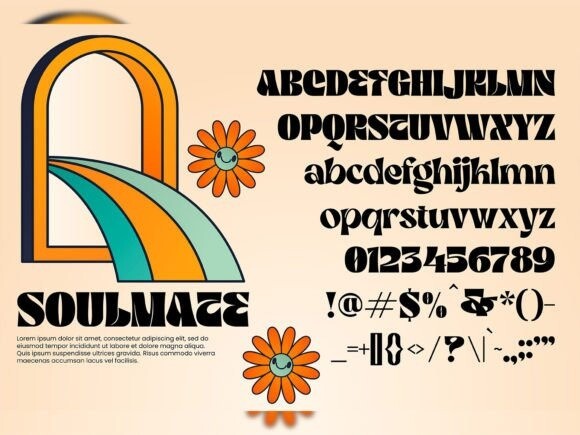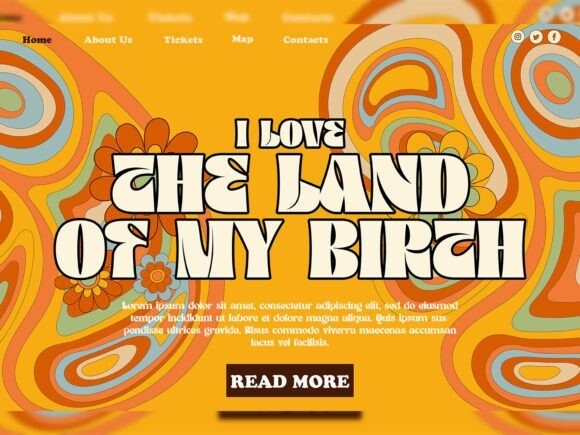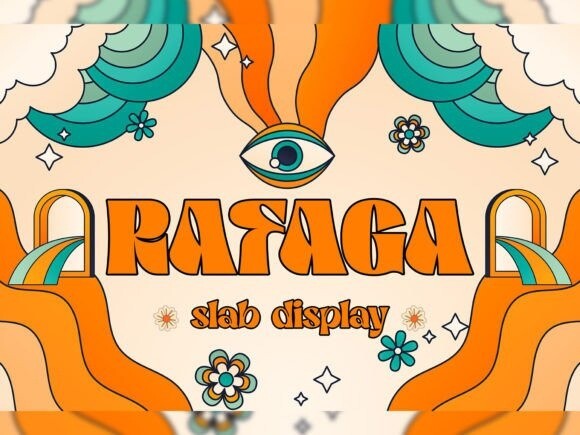
Rafaga Font
Rafaga font is a playful homage to retro design, combining boldness and nostalgia in a slab serif style. Its distinct letterforms and vintage charm evoke a sense of adventure and excitement, ideal for eye-catching headlines, posters, and branding projects that seek a touch of retro flair with a modern twist.